As the festive season begins, brands everywhere are decking their digital halls. Whether it’s sprucing up social media posts or crafting captivating adverts, the right font can transform your message into a holiday masterpiece. Enter Picsart, your one-stop shop for all things festive in the font department. In this post, we’ll highlight five stellar fonts available on Picsart. Let us show you how each one can add a sprinkle of holiday magic to your branding.
Chipper
First up is Chipper, a font that truly lives up to its name. It’s perfect for brands aiming to inject a sense of fun and joy into their festive communications. Whether you’re announcing a holiday sale or sharing a season’s greetings post, Chipper ensures your message is delivered with a cheerful vibe. It’s especially great for brands targeting a younger audience or those who want to highlight the fun side of the holidays.
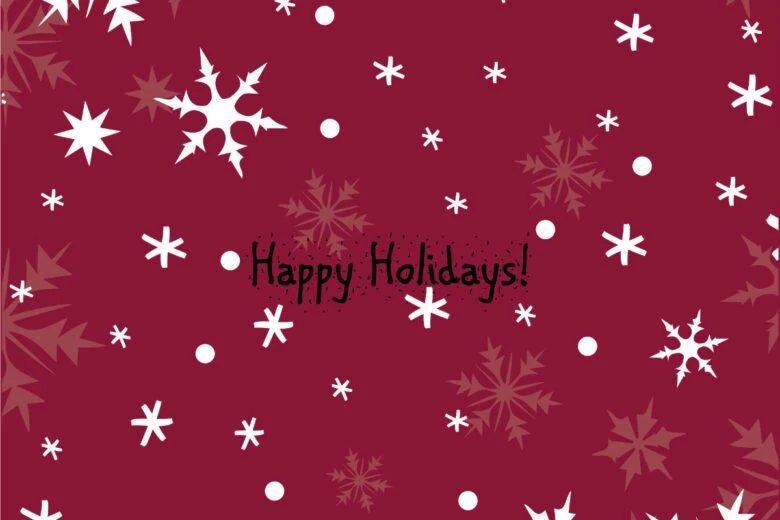
Festive Regular
Festive Regular is a classic jolly font – cozy, traditional, and full of holiday spirit. It features classic lettering and elegance, making it ideal for brands that lean towards a more traditional or sophisticated festive style. Use Festive Regular for your elegant holiday event invitations, upscale promotional materials, or heartwarming season greetings. It’s the perfect font to convey warmth and a classic holiday charm.
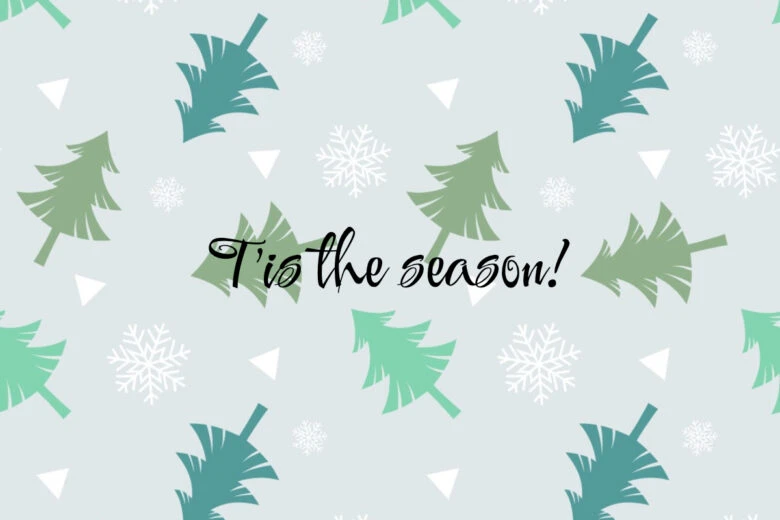
Playfair Italic
Sophistication meets festivity in Playfair Italic. This font, with its refined italics and clean lines, is perfect for brands that aim for a more formal or luxurious holiday appeal. Its elegant strokes are ideal for high-end holiday adverts, sophisticated season greetings, or classy social media posts. Playfair Italic adds a touch of class to any message, ensuring your brand stands out with grace during the festive rush.
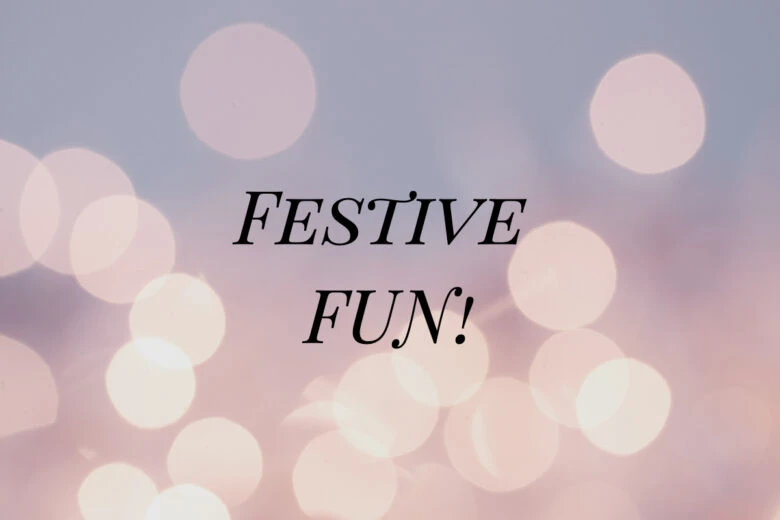
Montserrat
Montserrat is the versatile powerhouse of festive fonts. Its modern, sans-serif style makes it a superb choice for a wide range of branding needs. From crisp holiday sale announcements to sleek season greetings, Montserrat’s clear and contemporary look ensures your message is both readable and stylish. It’s a great all-rounder that can cater to both playful and serious tones, fitting seamlessly into various festive branding strategies.
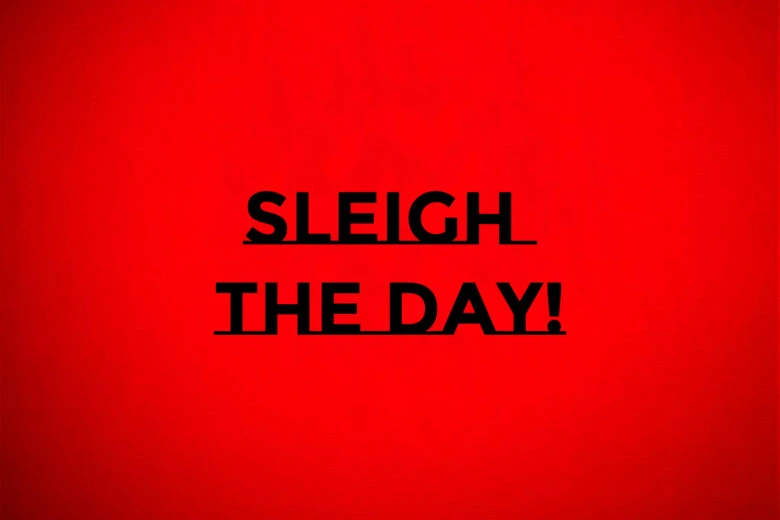
Bebas Neue
Bold and beautiful, Bebas Neue is the go-to font for making a statement. Its strong, clean lines are perfect for impactful headlines or attention-grabbing adverts. When your festive campaign calls for boldness, whether in a big sale announcement or an eye-catching event poster, Bebas Neue delivers your message with confidence and clarity. It’s ideal for brands looking to make a strong impression during the festive season.
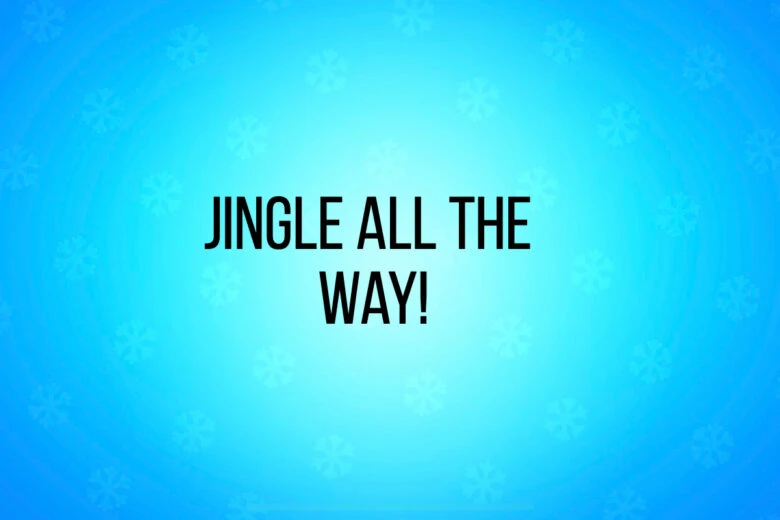
Each of these fonts offers a unique flavor to your festive branding palette. Whether your brand’s voice is cheerful and playful or sophisticated and elegant, there’s a font to match your holiday mood. This holiday season, let your brand shine bright with the perfect festive font from Picsart!